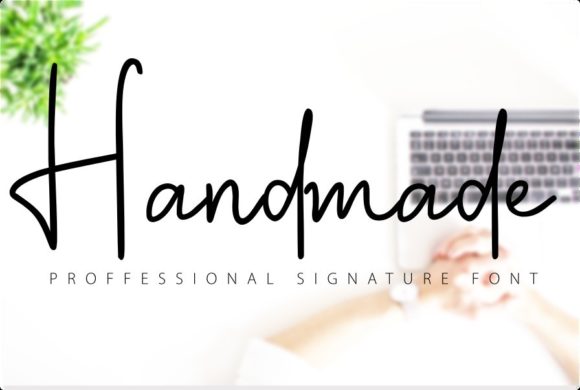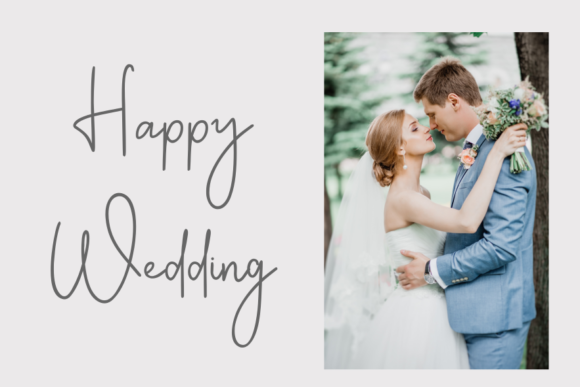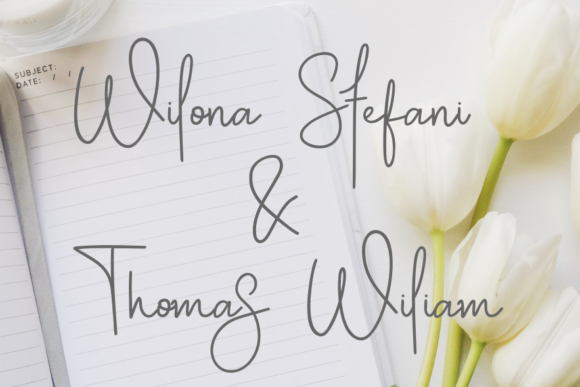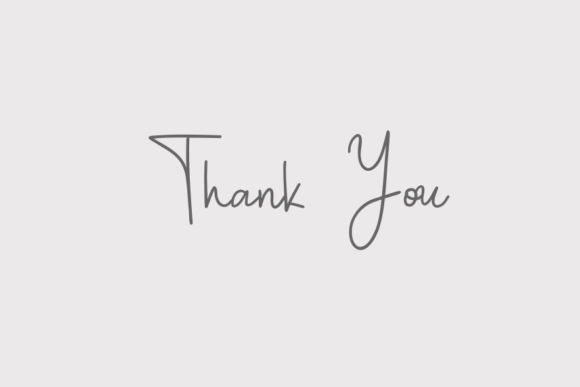
Handmade is a simple and adaptable handwritten font, that is made with great care in order to produce the expected outcomes. This font can be used for writing various kinds of products according to their respective needs.